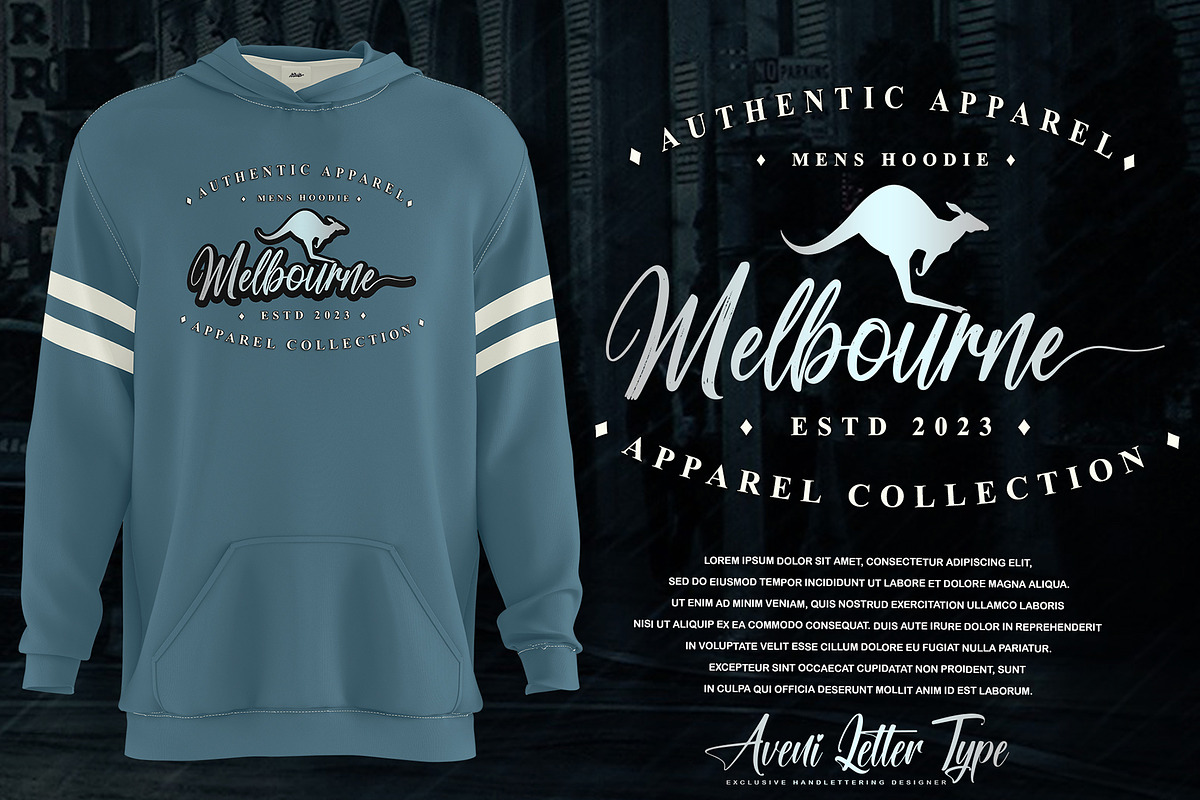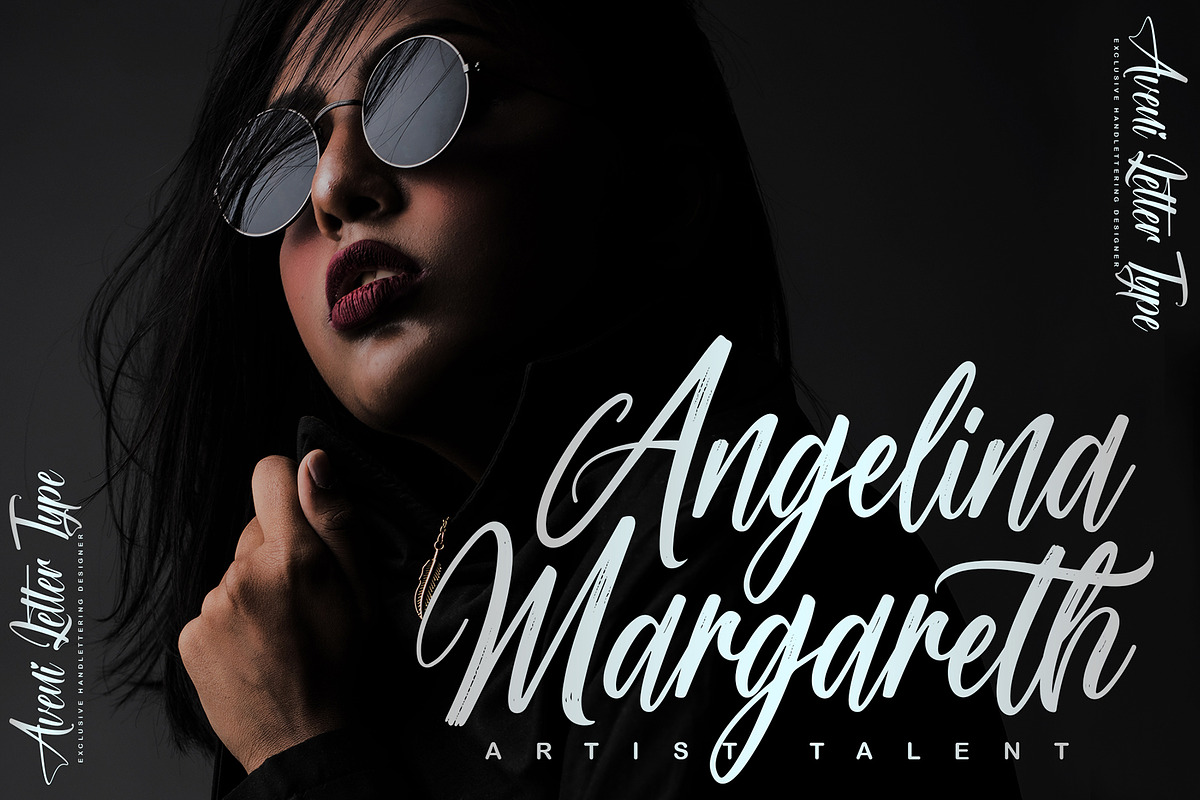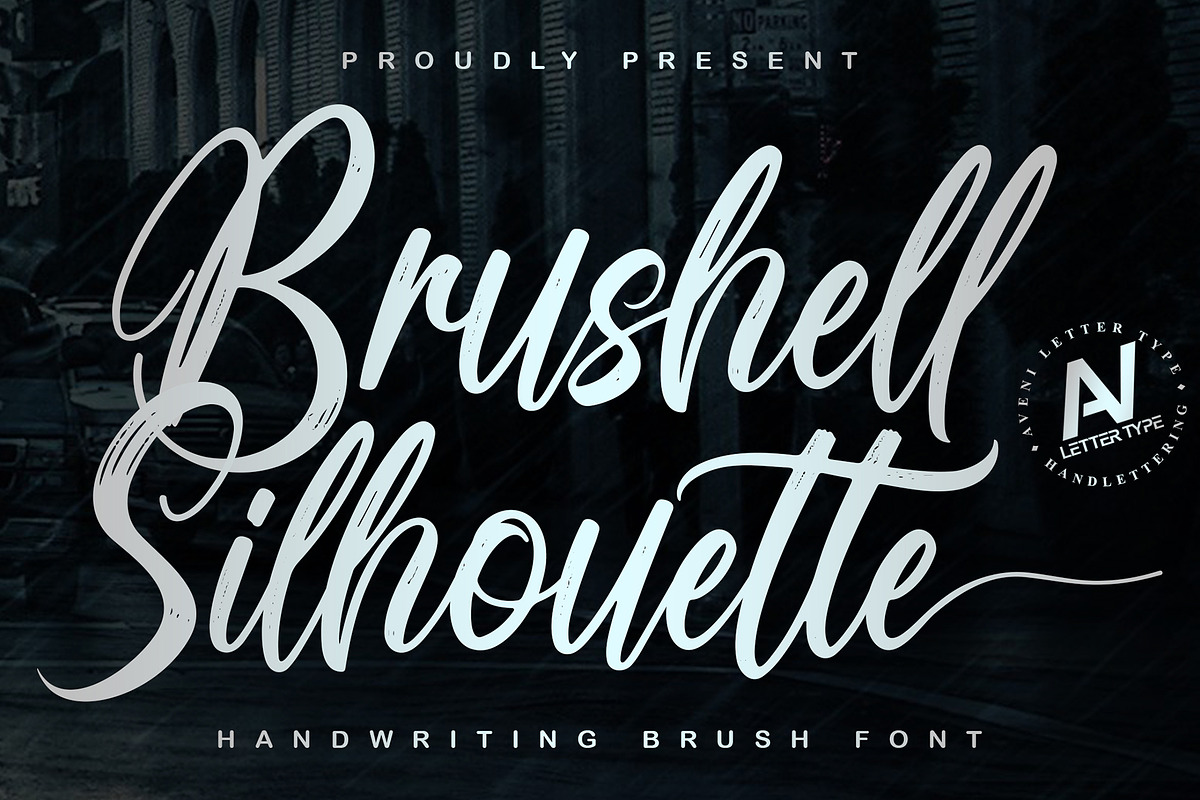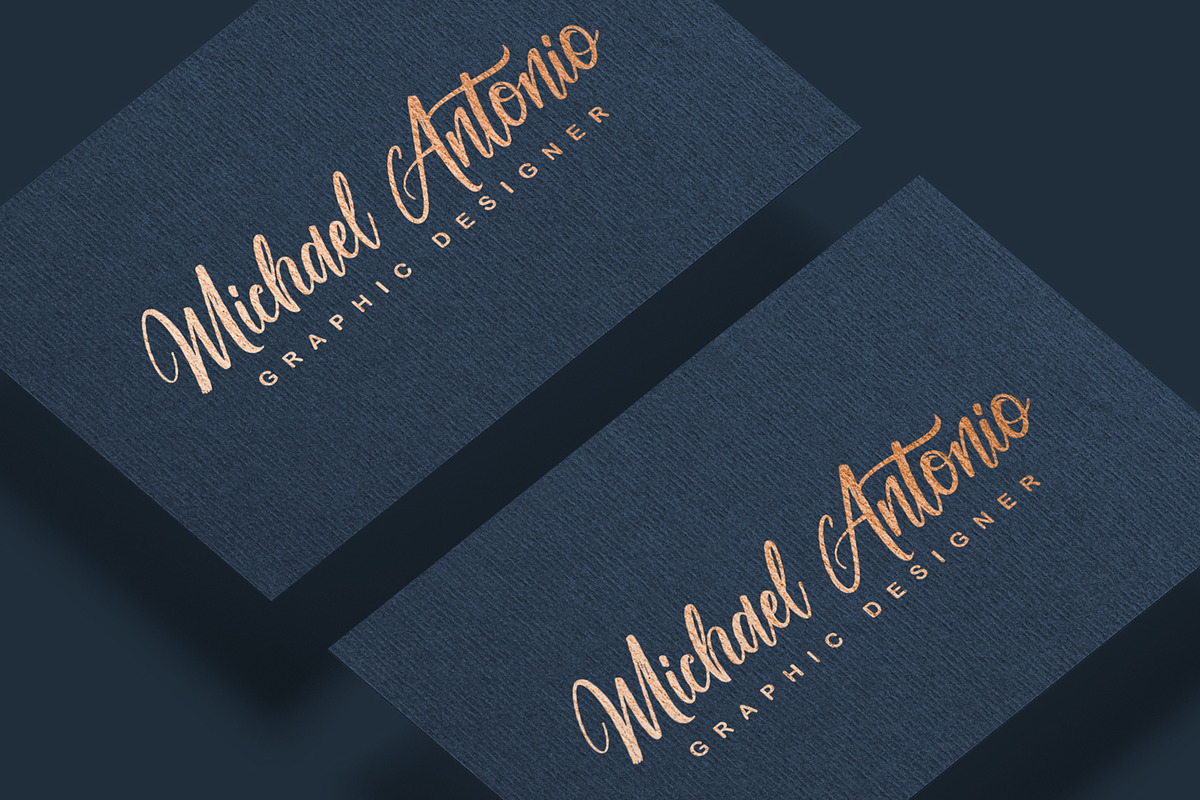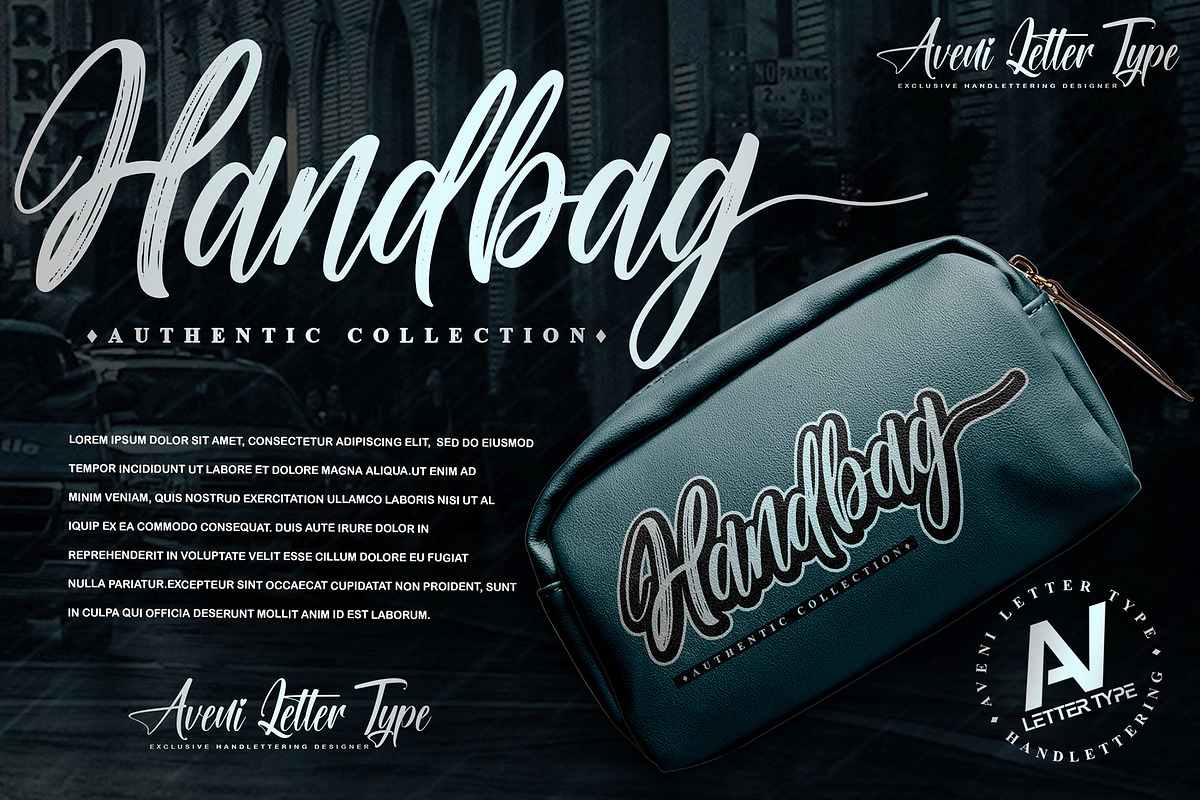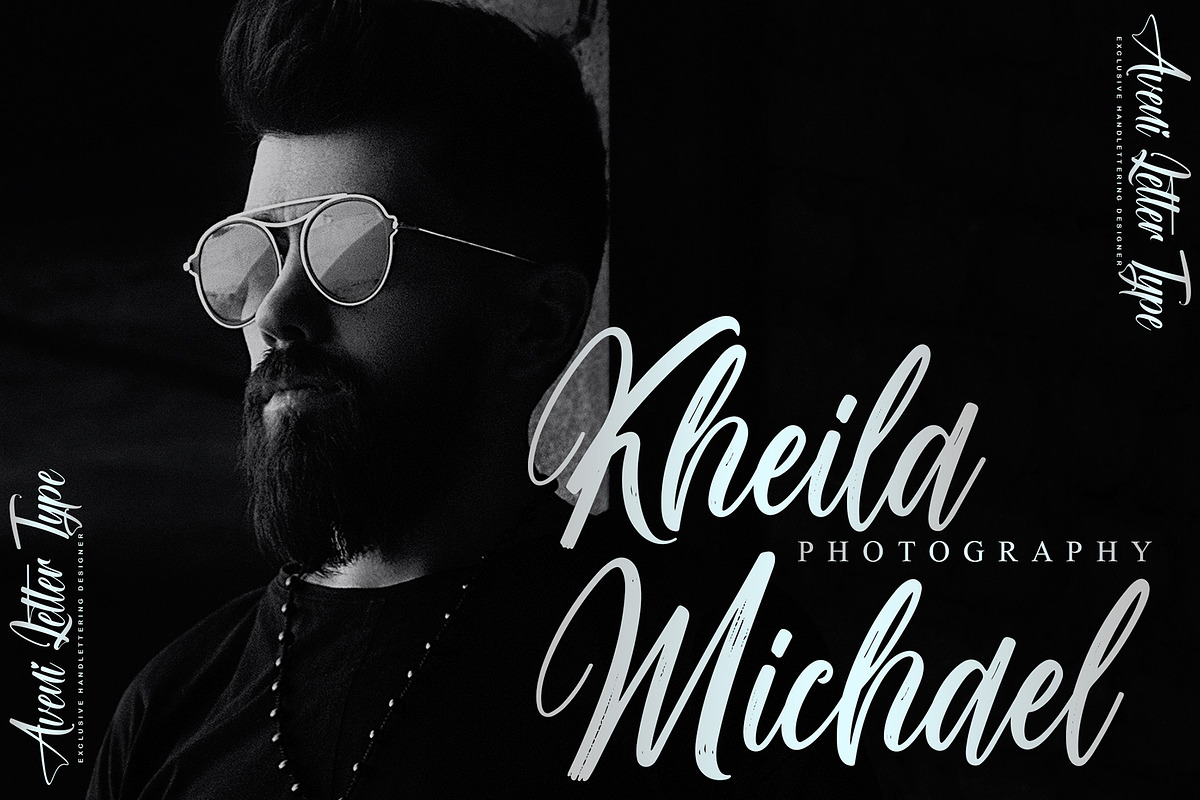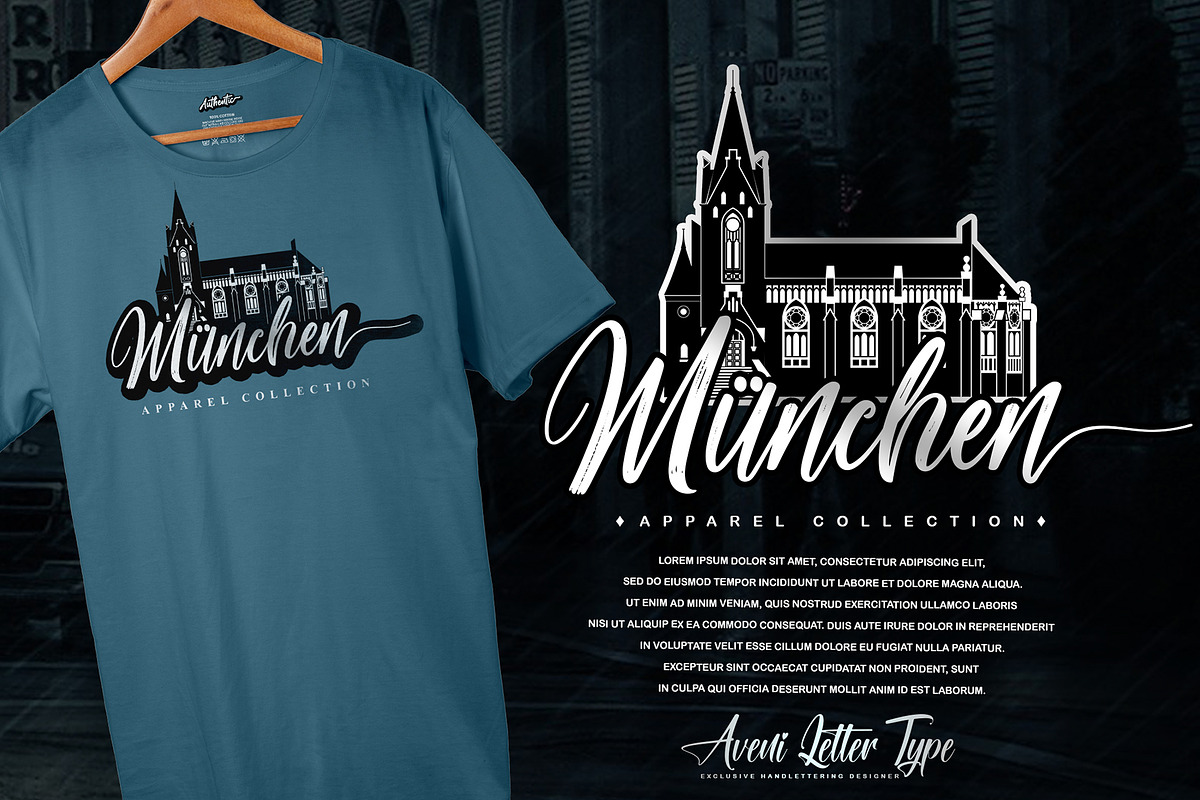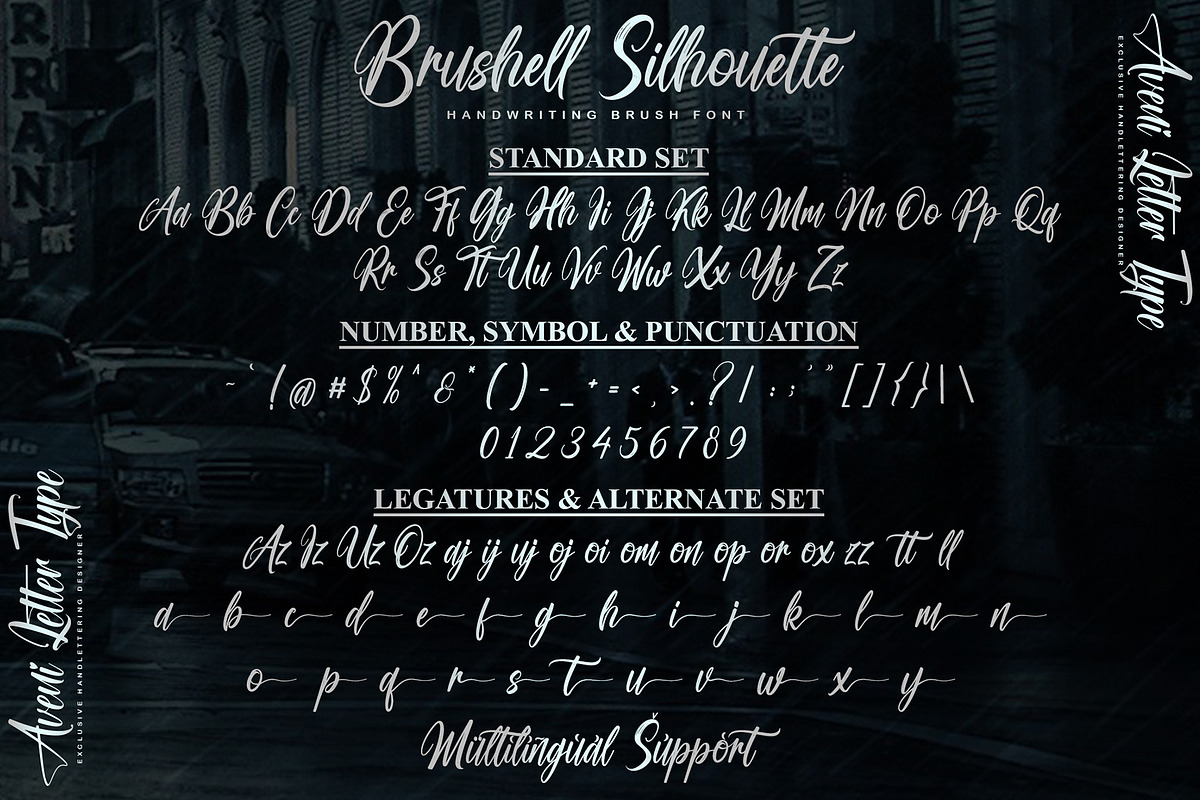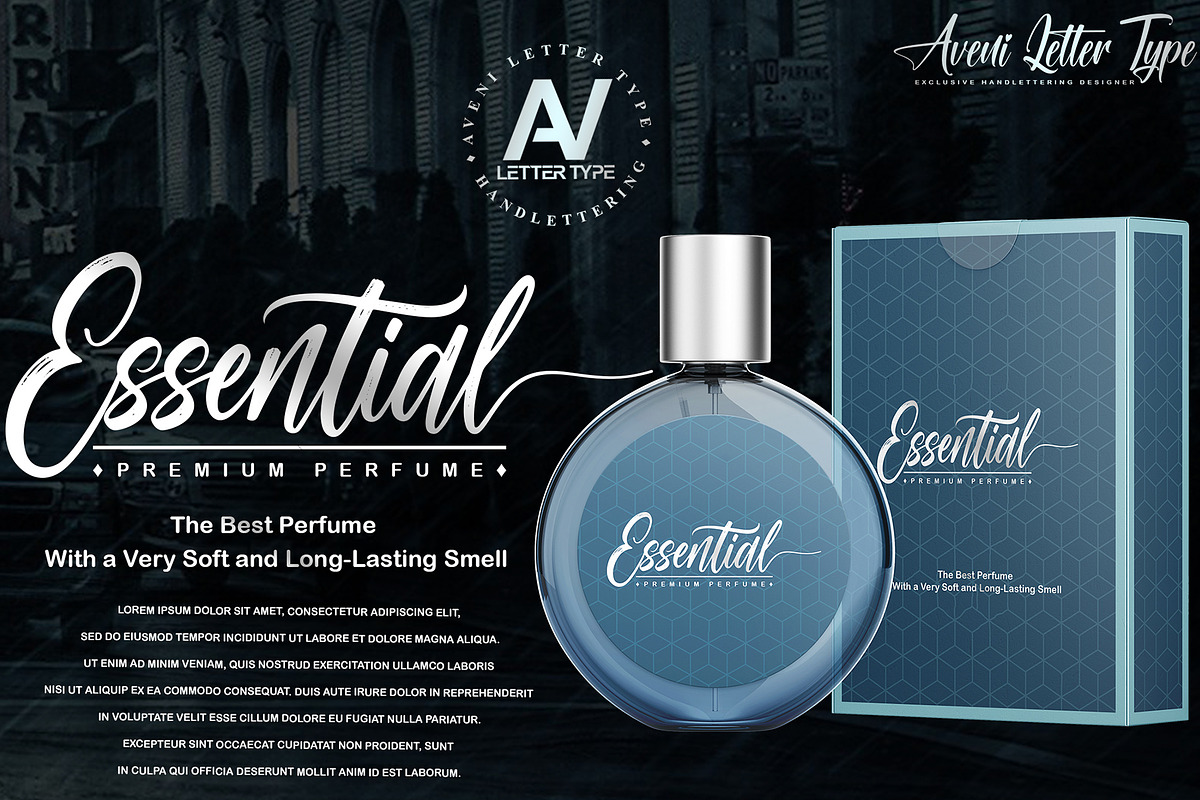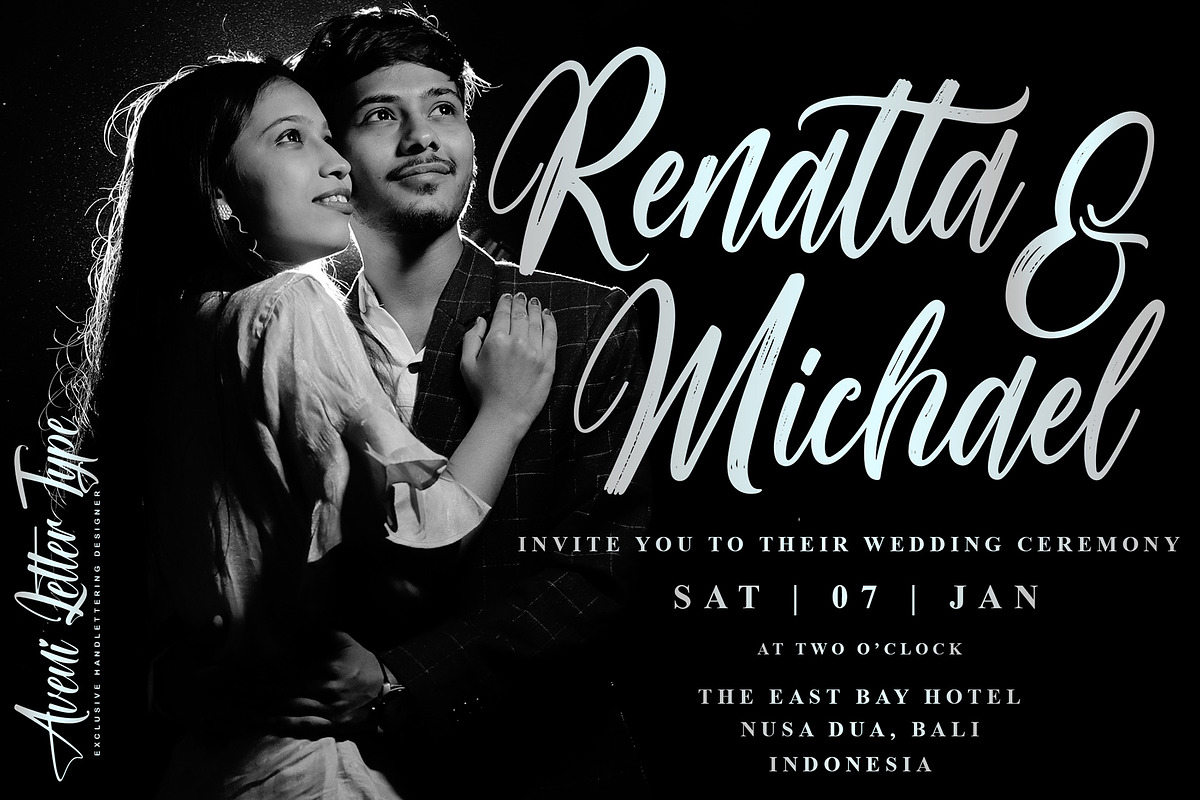
Brushell Silhouette | Handwriting
Hi Guys, my name is Brushell Silhouette, I was born with a handwritten font using a brush but still elegant and has very neat kerning. This font will look great in many projects, for example, you can use it for business cards, cosmetic branding, wedding invitations, product packaging, headers, posters, merchandise, apparel branding, social media & greeting cards, and so much more!
Font Feature :
- Ligature & Alternates